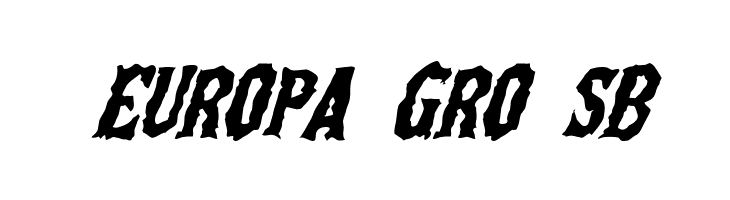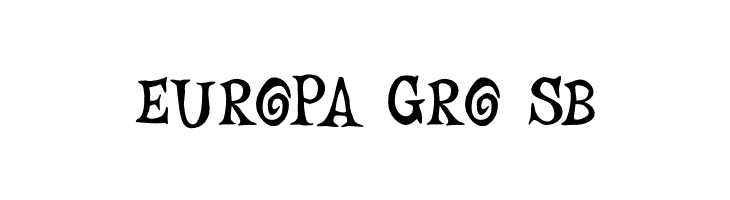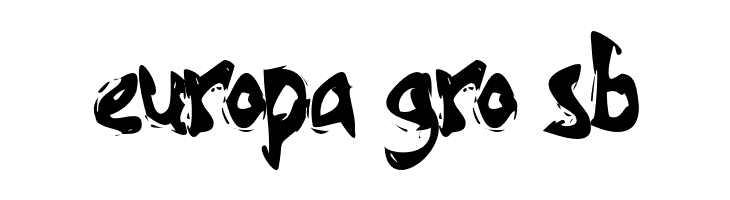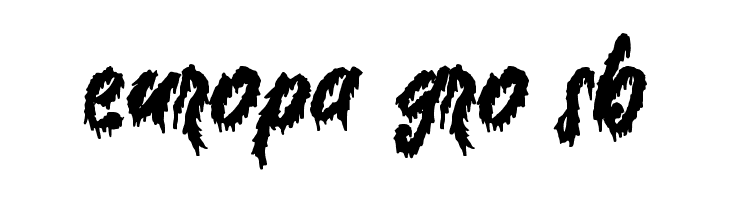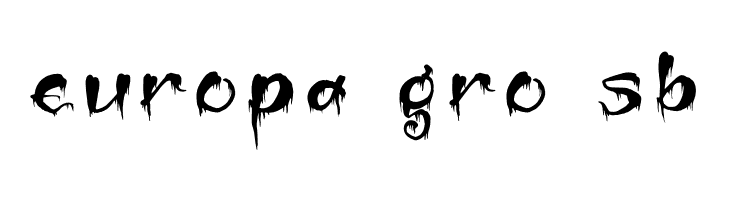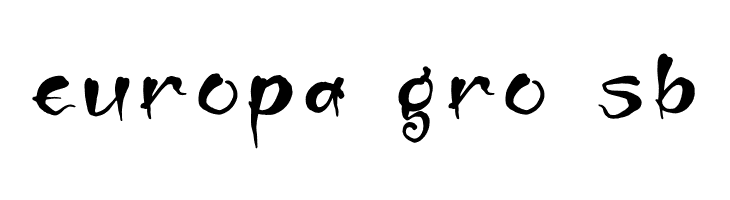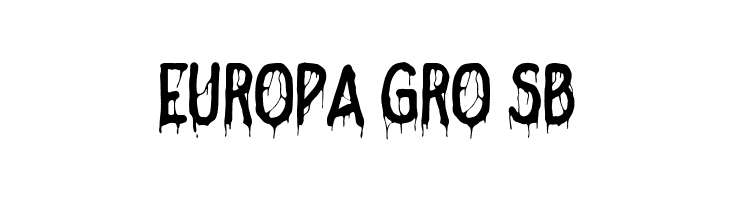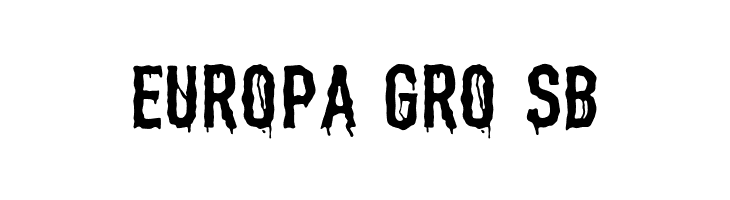
A bold, jagged font with a horror-inspired, eerie aesthetic.
A spooky, whimsical font with jagged edges and playful curves, perfect for Halloween themes.
A jagged, eerie font with chaotic, torn-paper-like strokes.
A spooky, dripping font perfect for Halloween themes.
A bold, dripping font with a spooky, horror-themed style.
A horror-themed font with dripping, jagged letters for a spooky effect.
A spooky, dripping font with a haunting and eerie design.
A spooky, hand-drawn font with an eerie, ghostly appearance.
A bold, dripping font perfect for spooky and horror-themed designs.
A spooky, dripping font ideal for horror-themed designs.